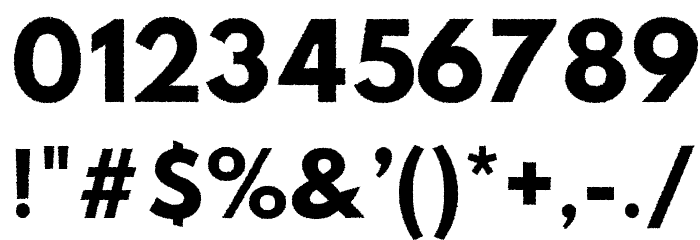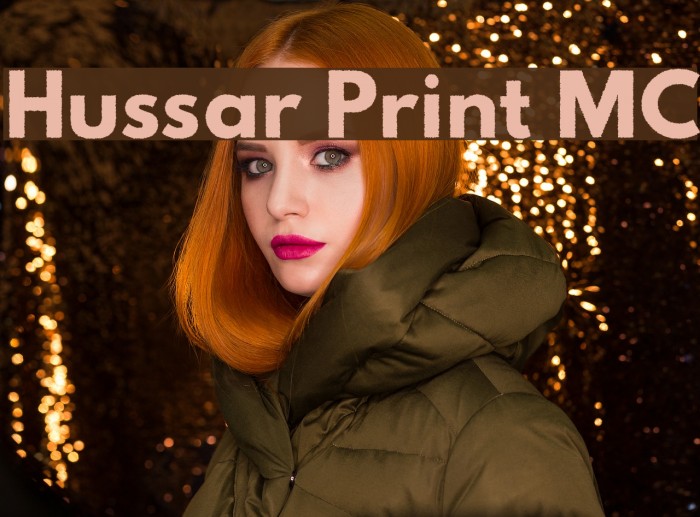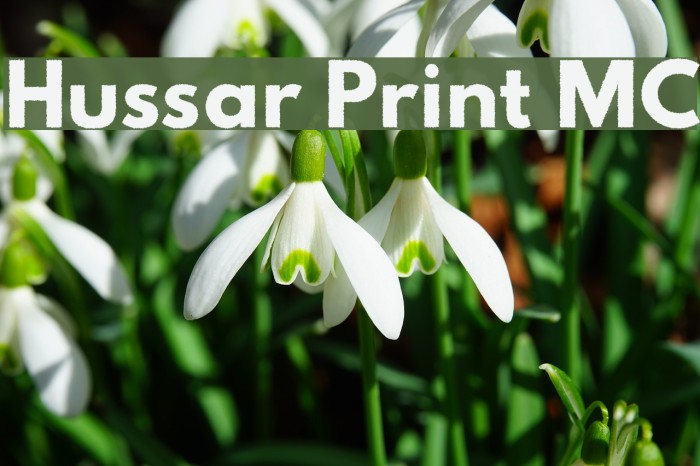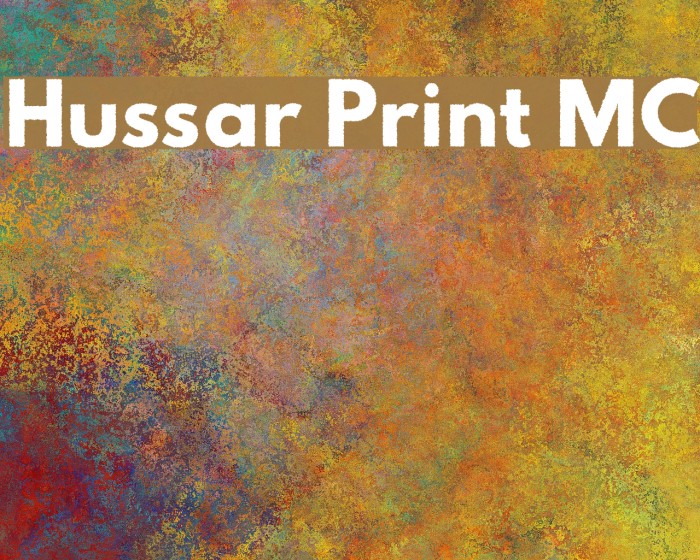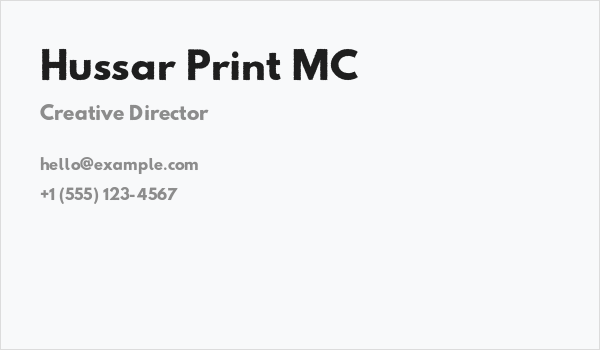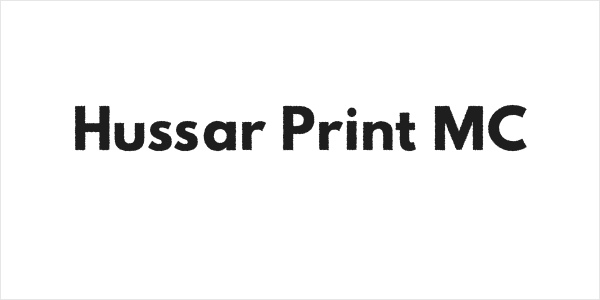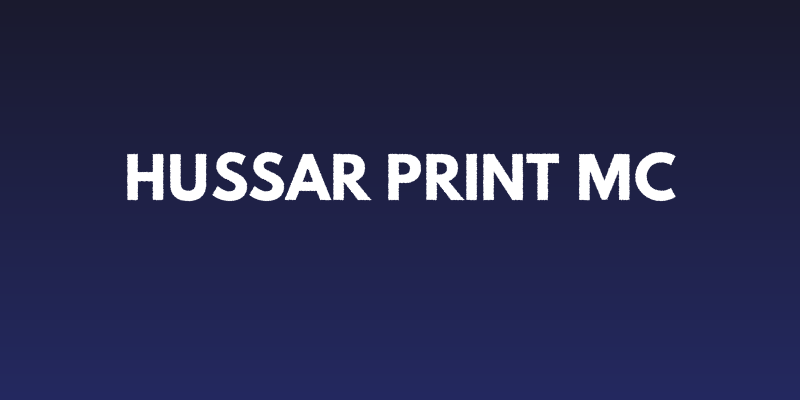
Hussar Print MC Font
Hussar Print MC Description
This font features bold, geometric letterforms with a strong presence. The uppercase characters are uniform in height, creating a cohesive look, while the lowercase letters maintain a consistent style with slightly rounded edges. The numerals are clear and legible, matching the boldness of the alphabet. Special characters are distinct and well-defined, ensuring versatility in various design contexts. The overall appearance is modern and impactful, making it suitable for attention-grabbing headlines and branding materials.
| Proposed Projects | Ideal for branding, advertising, posters, and headlines where a strong visual impact is needed. |